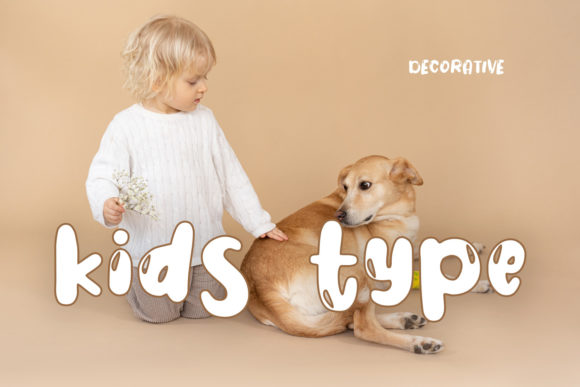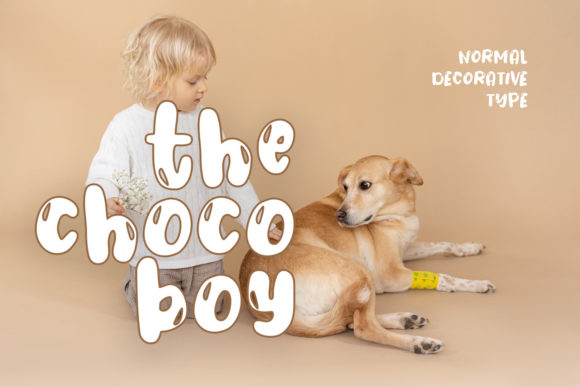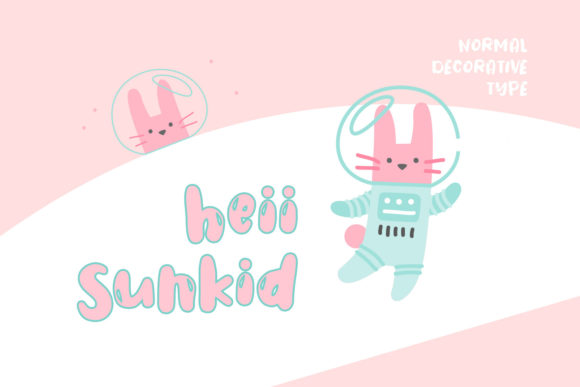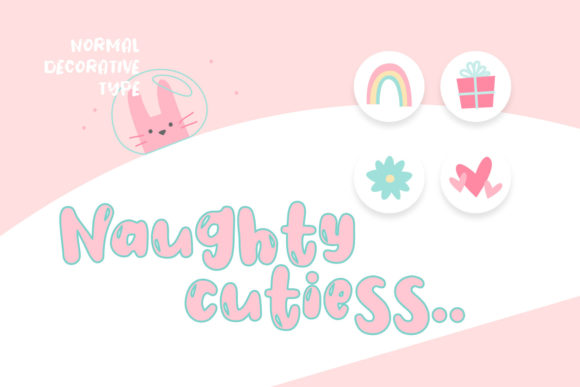
Who among us hasn’t stared at a blank page, searching for the perfect font to bring our ideas to life? The blank page stares back, taunting us with its emptiness. But then, like a breath of fresh air, a font emerges that captures the essence of our creative vision. For those looking to add a touch of whimsy and playfulness to their designs, we have just the thing – the Bubloose Font.
This cool, bubbly, and sweet display font is the perfect choice for any children’s activity or school project. Its authentic and playful feel makes it an instant hit with designers and non-designers alike. Whether you’re creating a birthday invitation, a nursery rhyme, or a fun educational poster, Bubloose Font is sure to bring a smile to your face and a touch of magic to your design.
Bubloose Font Key Features
- Unique Characteristics: Distinctive rounded edges and subtle irregularities give Bubloose Font a friendly and approachable feel.
Bubloose Font Review
At first glance, the Bubloose font seems like a fun and playful addition to any design project. The rounded edges and friendly curves evoke a sense of approachability and whimsy. ✨ I particularly appreciate how well it pairs with modern sans-serif fonts to create a balanced look. ✨
- Unique personality: Bubloose stands out from the crowd with its quirky, hand-drawn feel.
- High legibility: Even at smaller font sizes, Bubloose remains easy to read and understand.
However, there are some limitations to consider. ⚠️ The font’s eccentricity can sometimes make it feel overwhelming or distracting, especially when used extensively throughout a design. ⚠️ Additionally, the character set is limited, which may not be suitable for projects that require a wide range of characters or languages.
Overall, I think the Bubloose font is a great choice for projects that need a touch of personality and whimsy. It’s perfect for social media graphics, children’s books, or any design that wants to convey a sense of fun and approachability. However, it may not be the best fit for more formal or professional designs.
The Bubloose font is perfect for creating playful, handwritten text. Some common use cases include:
– Children’s book illustrations
– Social media graphics and ads
Comparison to Bubloose Font: While both fonts have a playful feel, Great Vibes is more refined and suitable for upscale designs. Bubloose Font has a more casual, handwritten look.
Comparison to Bubloose Font: Alex Brush has a more artistic, expressive feel than Bubloose Font, making it perfect for projects that require a personal touch.
Comparison to Bubloose Font: While both fonts have a casual, handwritten feel, Pacifico is more laid-back and suitable for designs that require a sense of serenity.